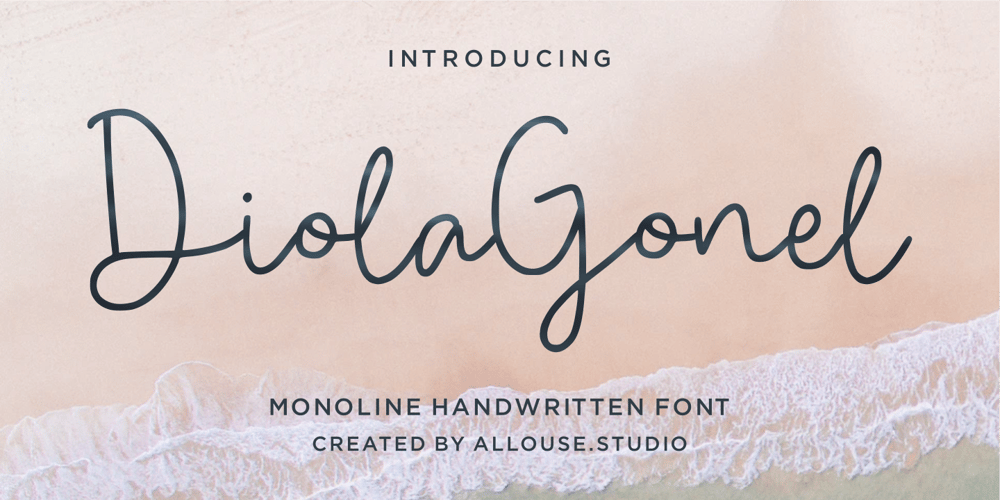
Diola Gonel Font Family was designed by Fachrizal Yusuf and published by Allouse Studio. Diola Gonel contains 1 styles and family package options. Proudly Presenting Diola Gonel a Monoline Handwritten Font.Diola Gonel come along with Multi-Lingual Support which will fulfill your need.We highly recommend using a program that supports OpenType features and Glyphs panels like many of Adobe apps and Corel Draw, so you can see and access all Glyph variations.Diola Gonel is perfect for any tittle, logo, product packaging, branding project, megazine, social media, wedding, or just used to express words above the background.Enjoy the font, feel free to comment or feedback, send me PM or email. Thank You!